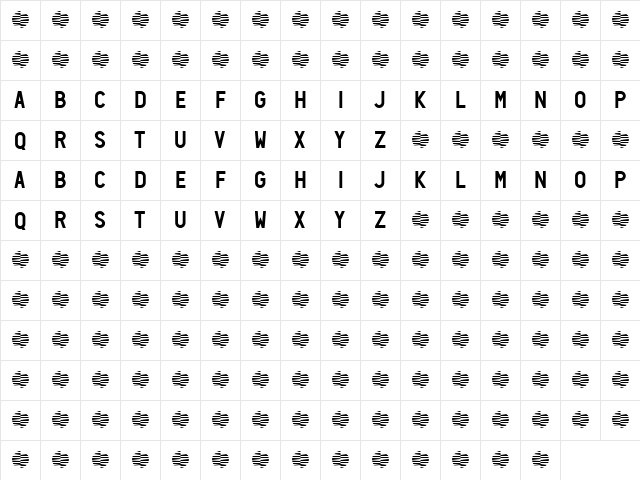
Neozoic Trial Regular
| Foundry | Syntetype Studio |
| Designer | Radinal Riki |
Design Context for Neozoic Trial Typeface
Neozoic Trial offers clean, dependable letterforms without strong stylistic allegiance, making it a practical choice for designers who need flexibility.